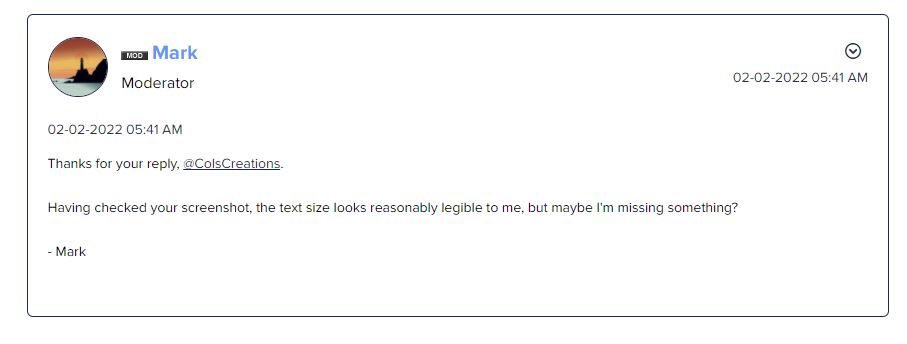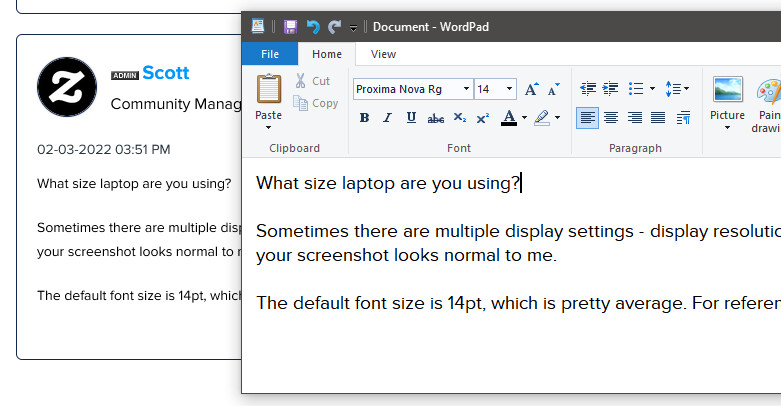
At my 1920 x 1080 resolution with both Windows system default and browser default set to 100% scale, the text is really, really small and a struggle to read. I have to zoom in on every post page. When I post, I am trying to remember to change the text size from the default of “smallest” to “normal”. I’d go even bigger but setting the default to at least “normal” instead of “smallest” would help reduce eye strain and save time manually zooming everything.
The font size for mine seems quite large and legible but I am using the Opera browser so I am not sure if that would have an effect.
Screenshot at 100% actual size
reduced for forum inclusion:
That’s how it appears in Firefox. I tried Opera and the default text is just as small.
I know I could adjust my system settings, or let Firefox remember to leave the forum pages zoomed in to a comfortable level, but since most of my computer use is focused on graphics and website design, I don’t like to have my perception skewed by a zoom level I often forget I’ve applied.
P.S. - in this post I set the text to “Big”.
Having checked your screenshot, the text size looks reasonably legible to me, but maybe I’m missing something?
This is how the text size appears for me, with the outside line length of the rectangle being equal to 9" for scale. It is definitely legible, but it seems more difficult to read everything here in this community format than in the previous forum.
My Windows resolution setting is set to 100%. The recommended setting is 125%, which I always used to use until I realized it was skewing my perception of size & layouts, and sometimes my user-experience. Like in the design tool - I never knew it showed us the name of the font in use on the right panel until I saw it mentioned in the forums. When I changed from 125% to 100% - there it was, I could see it.
I can’t be the only one without the best eyesight anymore so have been wondering why noone else has complained about how tiny the default text is here. It’s definitely not “quite large” or “reasonably legible” to me. It’s occurred to me now that if one’s system settings, resolution or browser, or a combination of them, are leading to a larger presentation, then even my screenshotted text would be seen larger than I see it. I think.
When I changed my Windows setting from the recommended 125% to 100%, everything got very noticeably smaller. I’m often trying to read a news article or blog page and wonder, why on earth did they use such impossibly tiny text?? Since no one else seems to have issue with how small the text it, it must just be me and my settings.
Also side-note - Firefox used to remember my zoom level for each site I visited so I could return weeks later and it would still be zoomed to wherever I left it. That’s not happening anymore so every single time I go to a new topic/post page in the forums, I have to zoom again. Luckily I have a touch-screen laptop so that’s not hard to do.
Anyway, thanks for listening. Since the problem seems to be with just me, maybe I’ll go back to 125% in my Windows settings.
What size laptop are you using?
Sometimes there are multiple display settings - display resolution, text size, display size, etc. Might be worth reviewing them again. But your screenshot looks normal to me.
The default font size is 14pt, which is pretty average. For reference, Microsoft Word defaults to 12pt font.
Windows 10 Home on an Asus laptop with 15.6" screen. One of the 2-in-1 touch-screen models you can fold over to use flat as a tablet. I never use it in tablet mode though.
From the best I could tell by inspecting the page, the default forum font is Proxima Nova Regular at 14pt as you said. I installed that font and used it to write in WordPad at 14pt. Below is a screenshot comparing the text in WordPad to the forums using Firefox.
Regardless of what “size” one is viewing my screenshot at, the proportional difference between the two should be evident. Despite it being on the same system with same settings and same font & pt size used, the forum text is significantly smaller for me. I don’t know what to make of that but I don’t think it’s a browser issue since the forum text appears the same size for me in Opera. (It’s actually even harder to read in Opera for me because the text there has less contrast, like they are using a slightly lighter shade of black there).
And if I may go out on a limb here … inspecting the page shows that the font size is declared in px. That’s a fixed-sized that’s not responsive to screen size. You can see this by dragging your window larger/smaller and while other elements & positioning may change, the text size always stays the same. Using em or %, which are both scalable/responsive instead of fixed, might eliminate the odd cases like mine where the fixed sized text is just too small for conditions.
* I set the size of my text in this post to “Big”.
Follow-up:
The default for the forums is not 14pt (a measurement used for print), its 14px (a measurement used for screen display). 14px converts to 10.5pt. I can’t do half-pts in WordPad but if I change the text size to 10pt instead of 14pt as above, the result is pretty much the same small size as I see in the forums.
If you open a doc in MS Word (where you can do half sizes) and set the text to 10.5 point, you should see approx. the same size text I see in the forums. Small!
Very sorry about the inaccuracy in my previous post. We’re using the standard font size as of now.
If anyone else is experiencing this same issue please let us know.
One more while I am in analytical mode:
If 14px (which the forums are set to) converts to 10.5pt, then at 125% (the recommended system default), that would be 13.125pt. Below is 10.5pt font compared to 13pt font in Word.
So the issue is me. I’m seeing posts at only 10.5pt (100%) instead of 13 (125%) which is probably the more common setting since its the recommended/default one. But having the forum font set in px instead of a scalable unit probably doesn’t help.